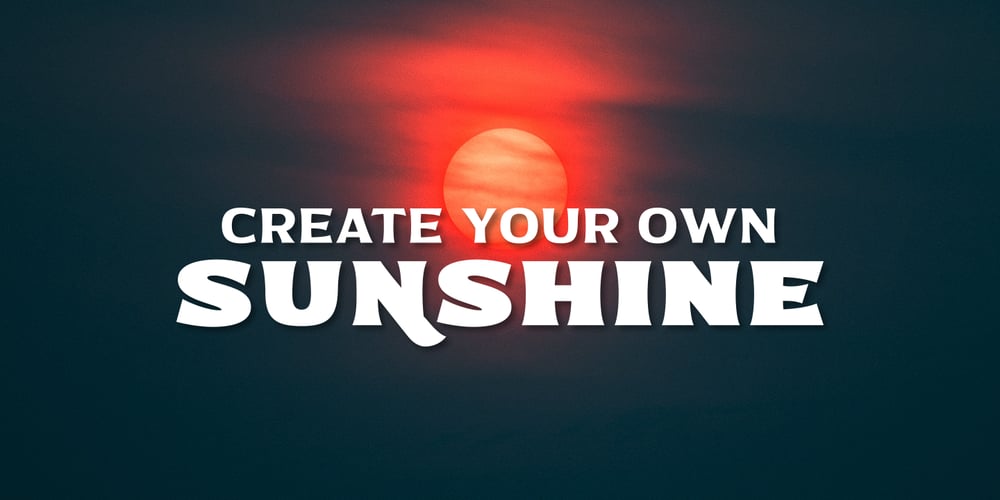
Bonega Font Family was designed by Arwan Sutanto and published by Locomotype. Bonega contains 8 styles and family package options. Bonega is a display font inspired by classic typography on ancient stone inscriptions. Consist of 4 weight (light, regular, bold, black) with each matching italics. With sharp and manly characteristics, Bonega family is suitable for powerful headlines, logotypes, beautiful signs, posters and more. Contains more than 400 glyphs including stylistic sets that make your typographic design more attractive.